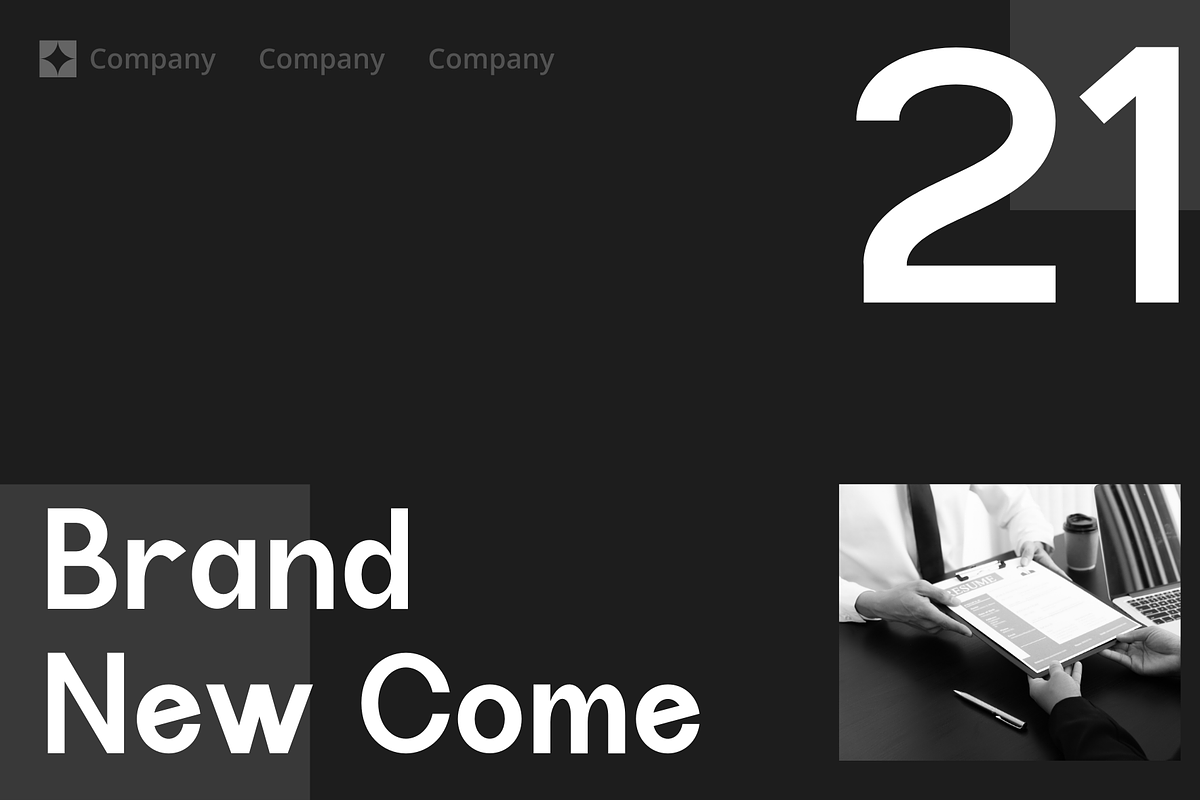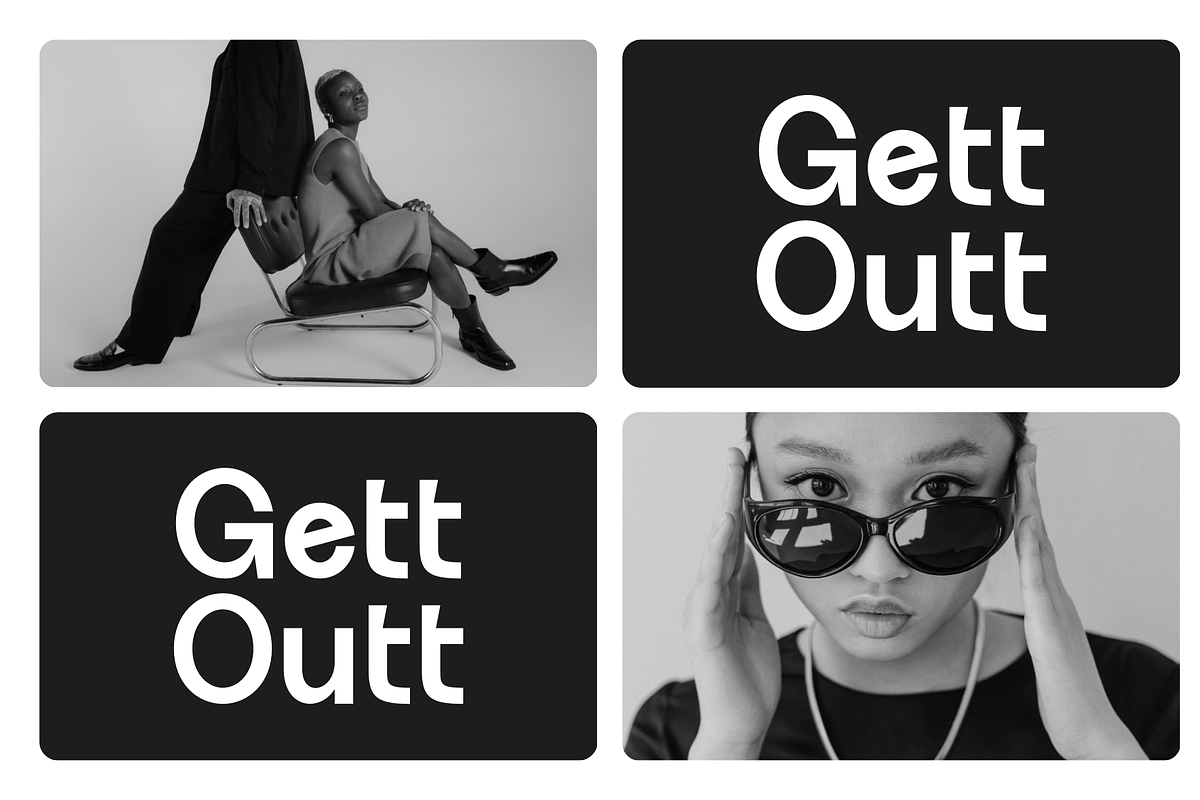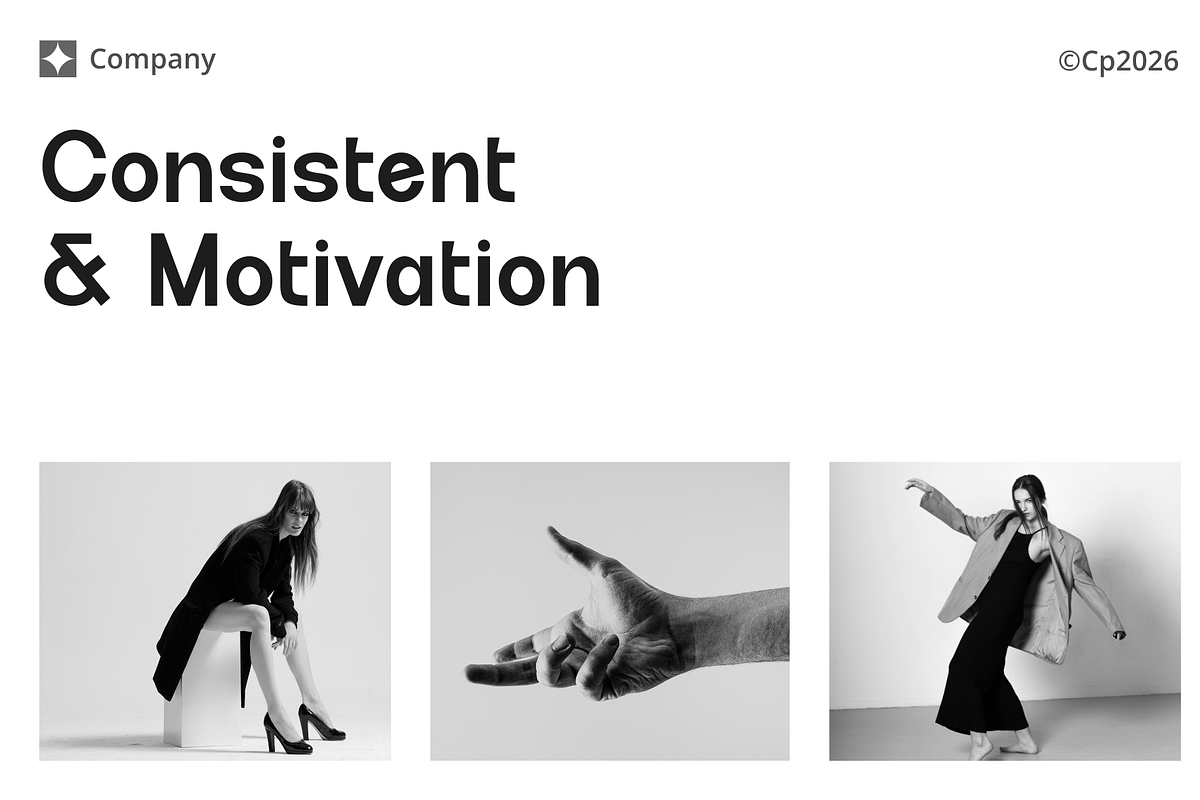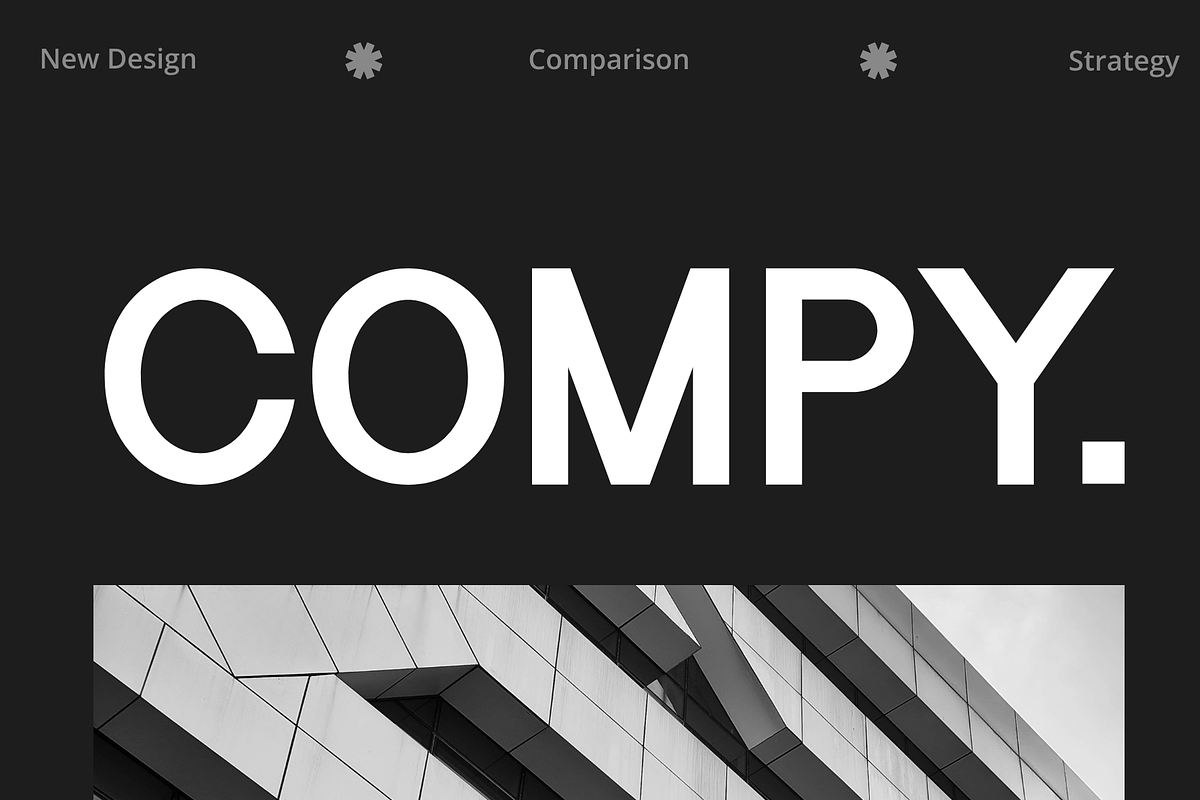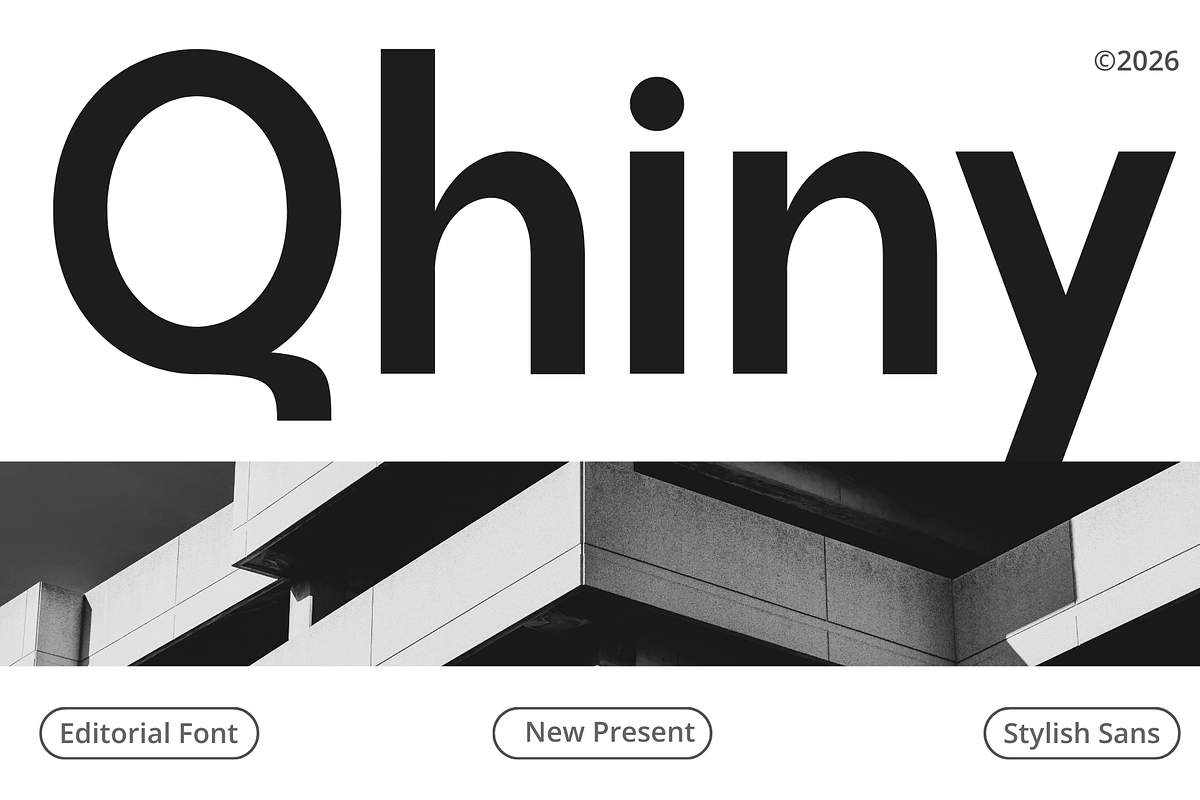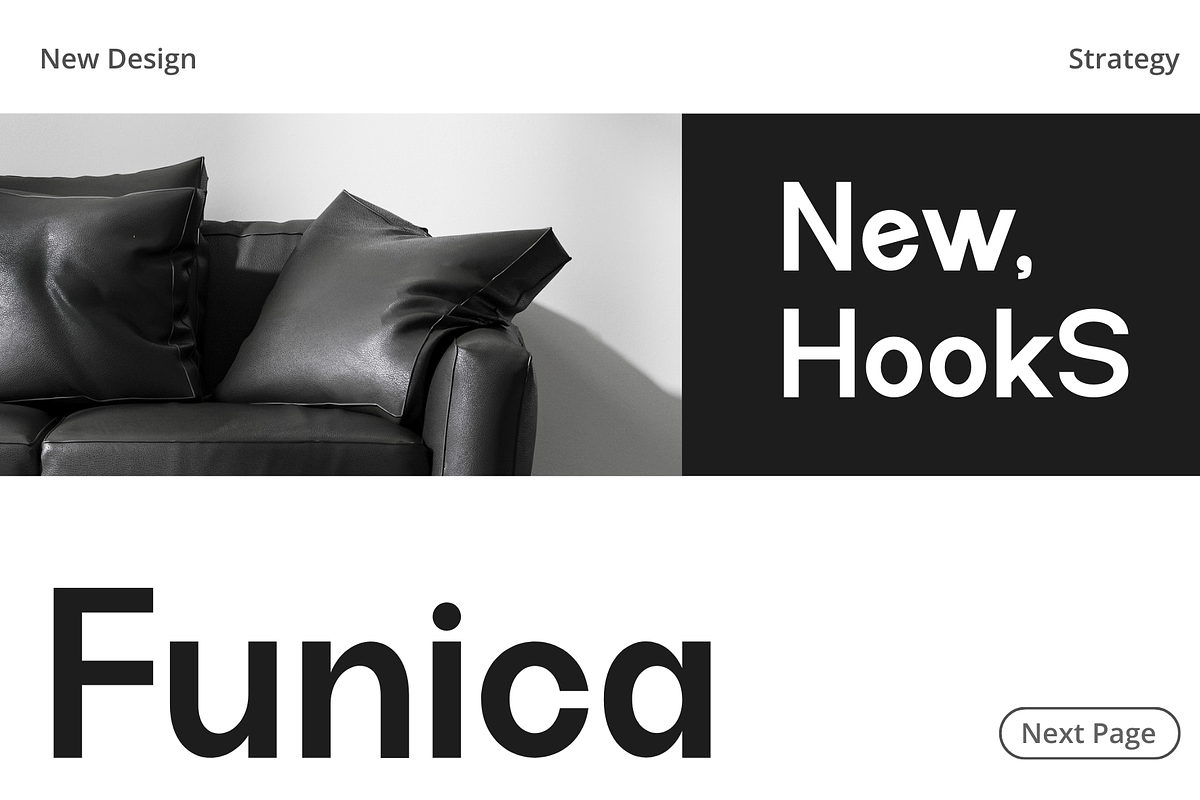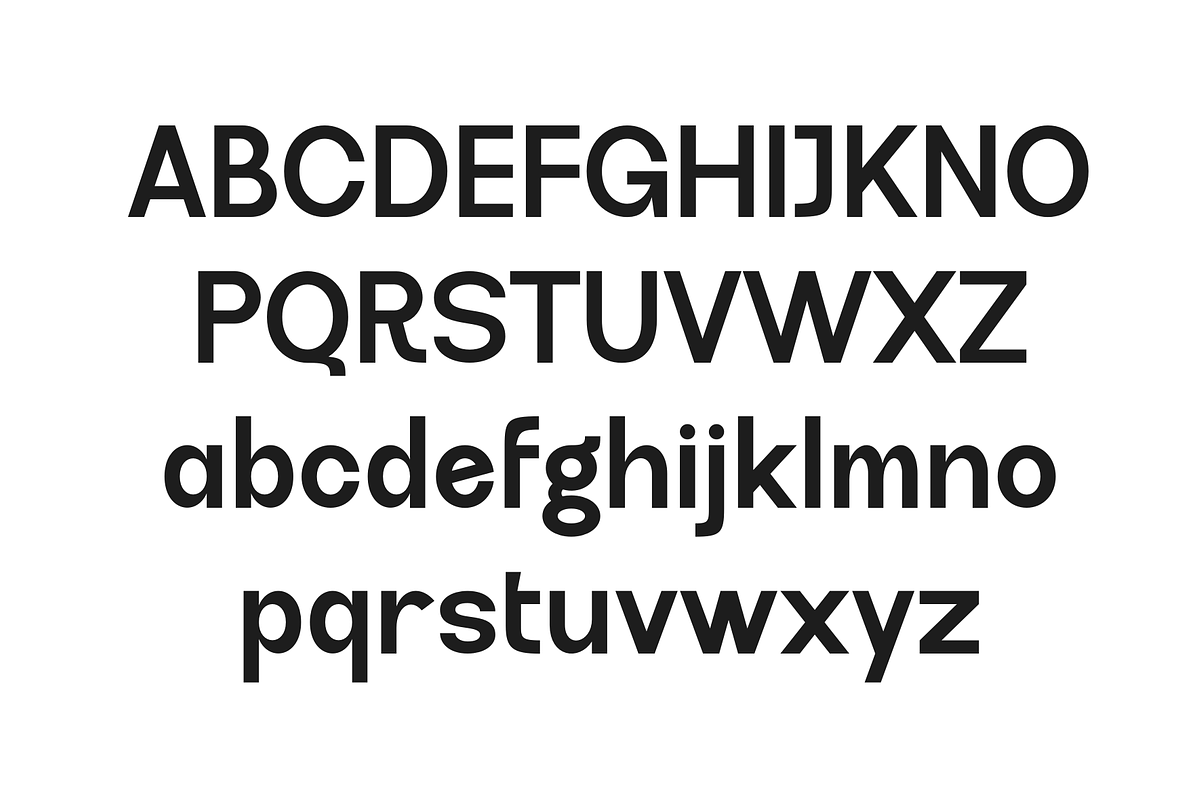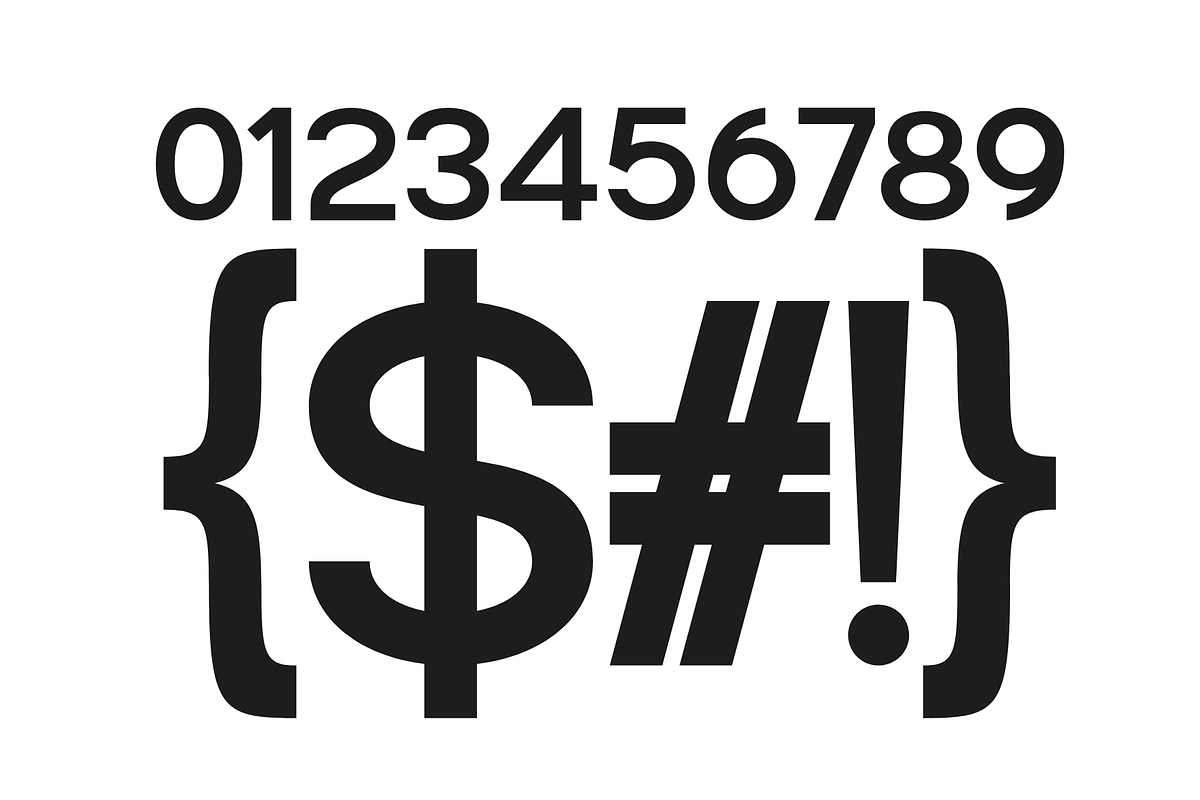
Qhiny – Modern Editorial Sans Serif
Introducing our new product Qhiny - Modern Editorial Sans Serif
Qhiny is a modern editorial sans serif typeface designed with a clean, confident, and contemporary character. Its balanced proportions, smooth curves, and strong structure make it perfect for editorial layouts, branding, corporate identity, and modern design projects.
This typeface works beautifully for headlines, magazine titles, posters, websites, and digital interfaces. With its minimalist and professional appearance, Qhiny delivers clarity and elegance while maintaining a strong visual impact.
Qhiny is ideal for designers looking for a versatile sans serif font that blends modern simplicity with stylish editorial aesthetics.